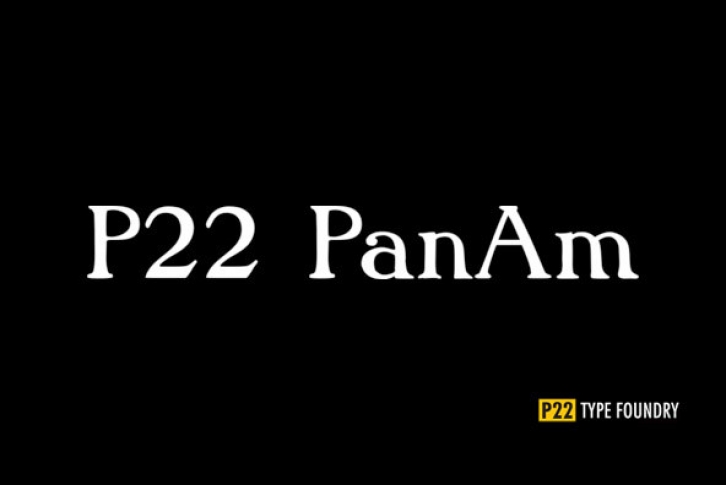
This font was created to help celebrate the centennial of the Pan-American exposition of 1901 which was held in Buffalo, New York. It is based on a variety of printed ephemera from the exhibition (which incidentally is most noted not for the spectacular electrical illuminations provided by nearby Niagara Falls, but rather for the assassination of President William McKinley).